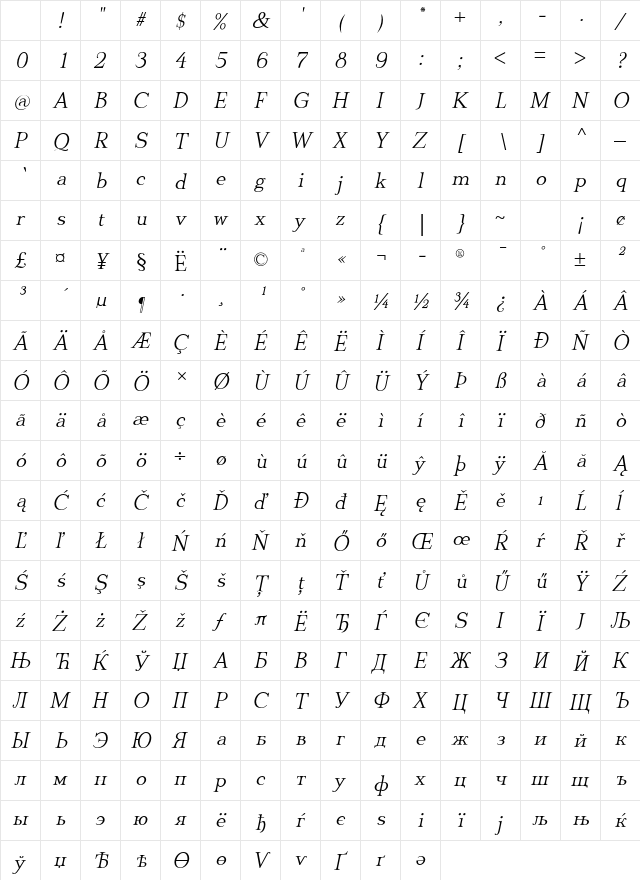
Complete DionisiiOTF Lt Light Italic glyph index. Displaying only characters natively supported by DionisiiOTF Lt Light Italic font.
DionisiiOTF Lt is a composed and adaptable typeface that performs quietly and consistently across a wide range of design contexts. The slanted form adds forward momentum and visual energy. Its slender proportions lend an understated elegance to any composition.